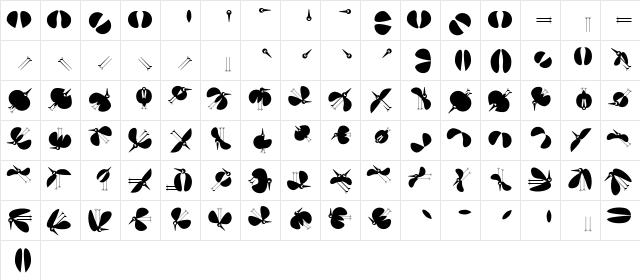
BirdsToolbox Regular
Design Context for BirdsToolbox Typeface
BirdsToolbox is a composed and adaptable typeface that performs quietly and consistently across a wide range of design contexts.